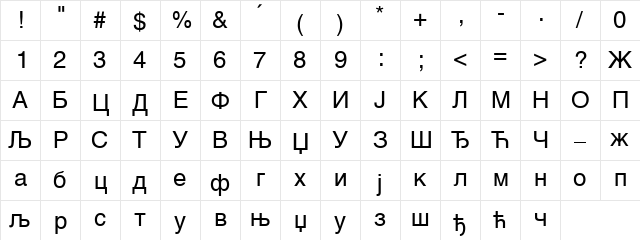
HelveticaCir Regular Font Preview
HelveticaCir Regular
Design Context for HelveticaCir Typeface
HelveticaCir offers clean, dependable letterforms without strong stylistic allegiance, making it a practical choice for designers who need flexibility.
Pro Tip: Pair HelveticaCir with a font of contrasting weight or personality to build a more expressive typographic hierarchy.